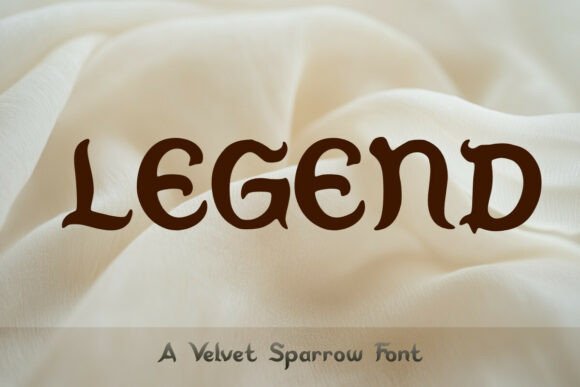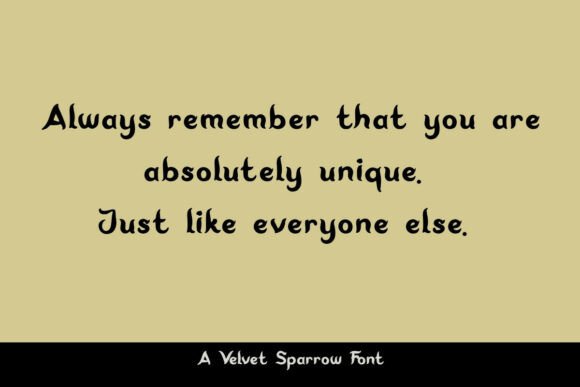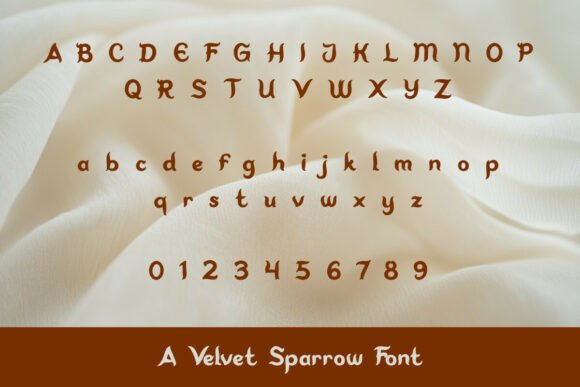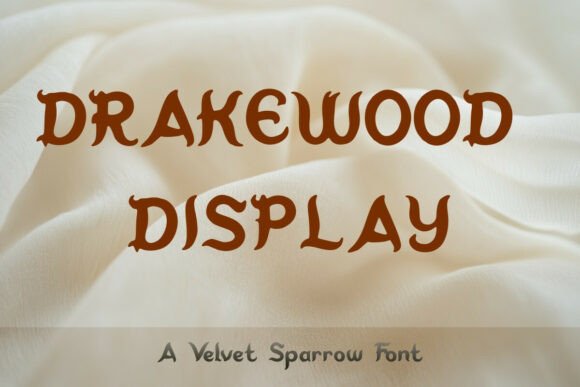
Introducing Drakewood Display: A Handcrafted Decorative Font with Character
In the world of typography, a font can make all the difference in conveying the tone and personality of a design. For designers, crafters, and creators looking for a distinctive display font that exudes warmth and character, Drakewood Display is an exceptional choice. This handcrafted decorative display font boasts a bold, organic character that is sure to elevate your titles, headings, signage, book covers, posters, quotes, and creative projects.
The Unique Charm of Drakewood Display
Drakewood Display’s charm lies in its slightly irregular shapes and softened edges, which give it a rustic, story-driven feel. This font is perfect for designs where personality matters more than precision. Its bold, organic character makes it an excellent choice for fantasy, folklore, woodland, and handcrafted design themes. Whether you’re creating a book cover, poster, or social media graphic, Drakewood Display is sure to add a touch of warmth and character to your design.
Key Features of Drakewood Display
• Handcrafted with love: Drakewood Display is a handcrafted font, which means that every letter and character has been carefully crafted to ensure a unique and distinctive look.
• Uppercase and lowercase letters: The font includes both uppercase and lowercase letters, making it perfect for a wide range of design applications.
• Numerals and basic punctuation: In addition to letters, Drakewood Display also includes numerals and basic punctuation, making it a versatile font for various design needs.
• Single-style display font: Drakewood Display is a single-style display font, which means that it does not include bold or italic variations. However, its bold character makes it perfect for designs where a statement is needed.
Perfect for Designers, Crafters, and Creators
Drakewood Display is an excellent choice for designers, crafters, and creators who want to add a personal touch to their designs. Its unique character and rustic feel make it perfect for a wide range of design applications, including:
• Book covers: Add a touch of personality to your book covers with Drakewood Display’s bold, organic character.
• Posters and quotes: Create eye-catching posters and quotes with Drakewood Display’s rustic, story-driven feel.
• Signage: Use Drakewood Display for signage that needs to make a statement.
• Creative projects: Add a personal touch to your creative projects, such as craft tutorials, DIY blogs, or social media graphics.
Tips for Using Drakewood Display
To get the most out of Drakewood Display, here are a few tips:
• Use it at larger sizes: Drakewood Display shines at larger sizes, so use it for titles, headings, and signage.
• Experiment with colors: The rustic feel of Drakewood Display pairs well with earthy colors, but feel free to experiment with different color combinations to find the perfect fit for your design.
• Pair it with other fonts: Drakewood Display can be paired with other fonts to create a unique and interesting contrast. Try pairing it with a clean sans-serif font for a striking combination.
In conclusion, Drakewood Display is a handcrafted decorative display font that offers a unique and distinctive look for designers, crafters, and creators. Its bold, organic character and rustic feel make it perfect for a wide range of design applications, from book covers to posters, quotes, and creative projects. With its uppercase and lowercase letters, numerals, and basic punctuation, Drakewood Display is a versatile font that is sure to add a touch of warmth and character to your designs.